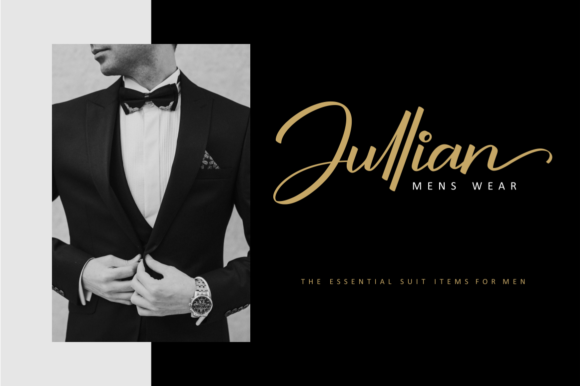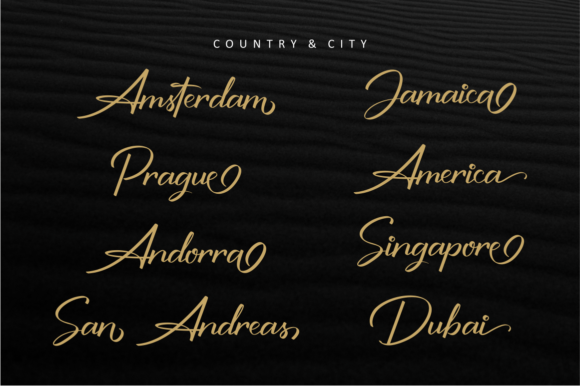
Shutter Braille Script Font
db-ku.com - Script & Handwritten -- The Shutter Braille is a striking calligraphy font. It was carefully crafted from a sketch, and has a young and energetic feel which can be used to create an unique logo, name tag, quote, business card, and much more!